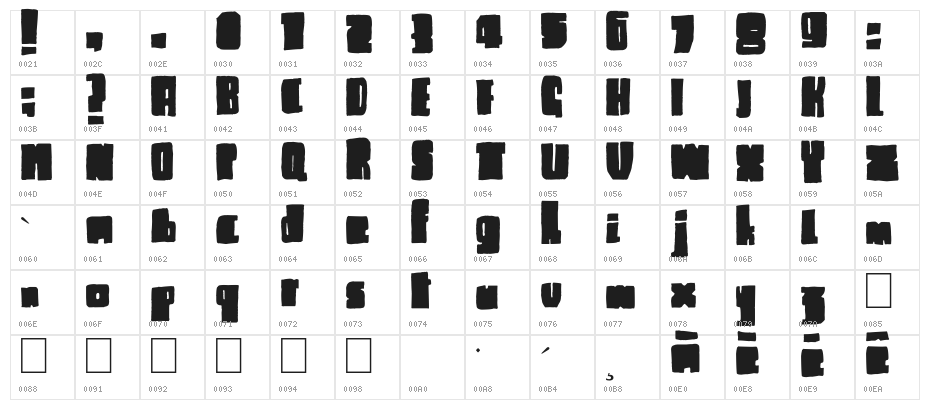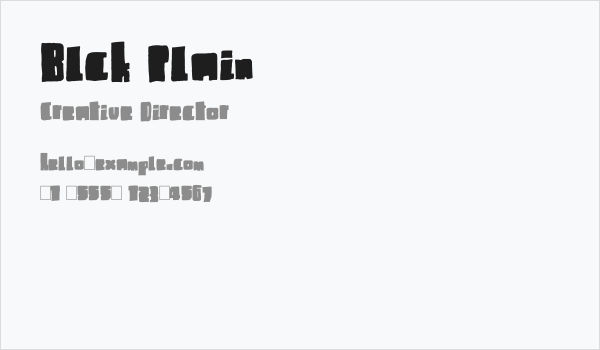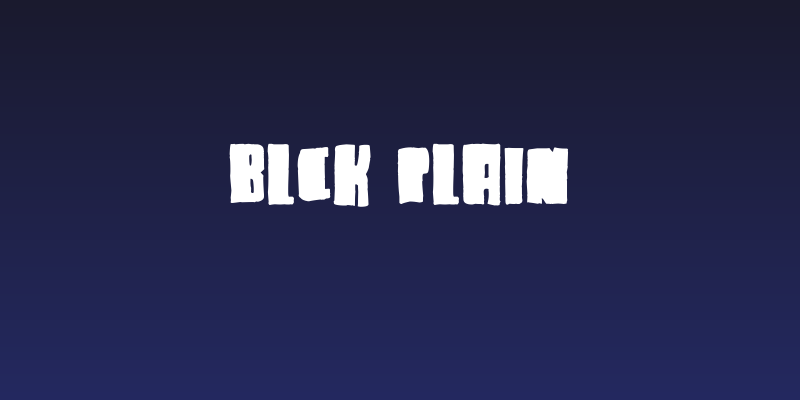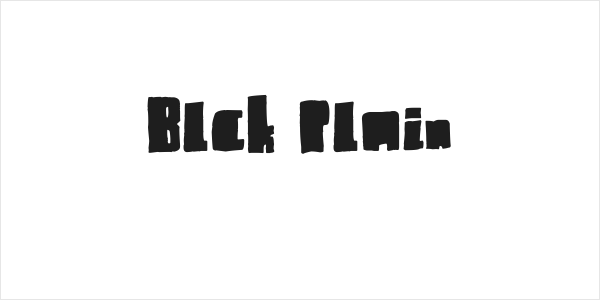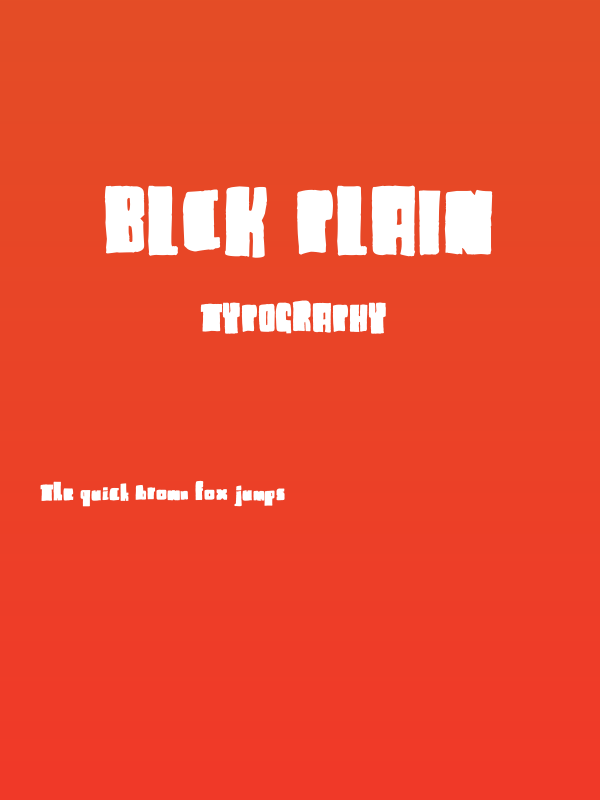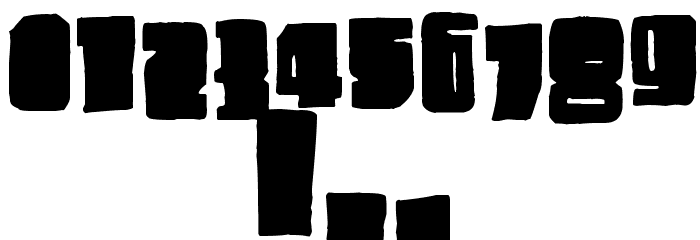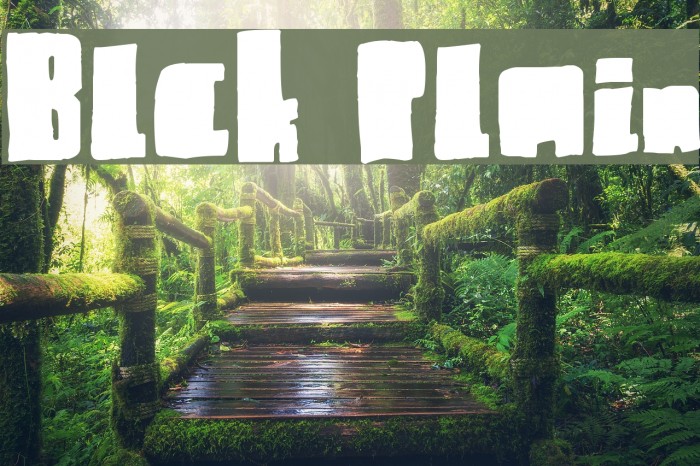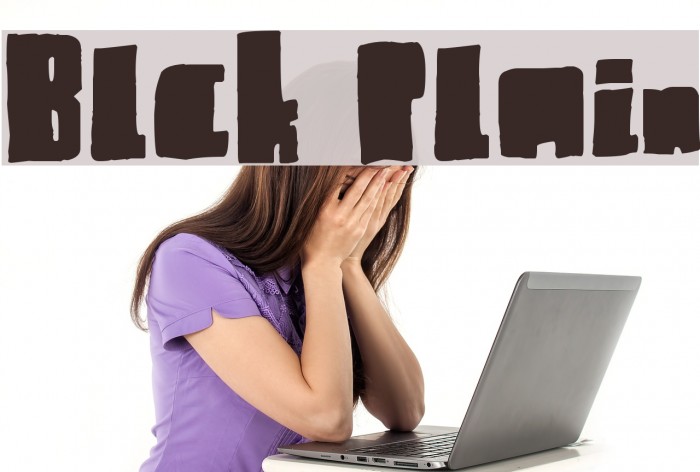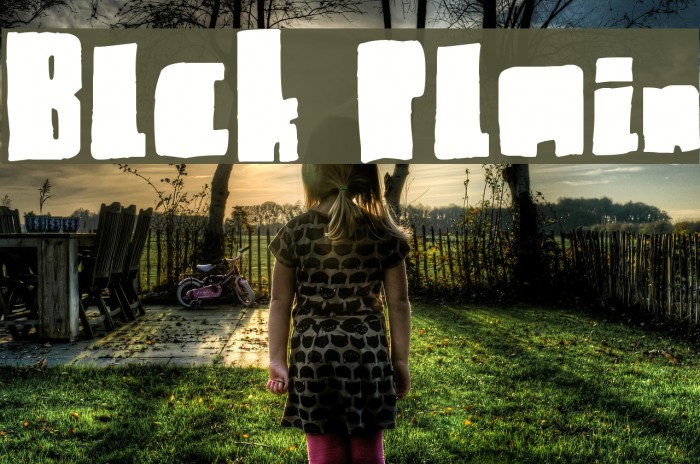
Blck Plain Font
Blck Plain Description
This font features a bold and chunky design with a distinctly rugged and uneven texture. Each character appears to be hand-cut, giving it a raw and organic feel. The letters are wide and blocky, with irregular edges that add to the font's unique personality. The uppercase and lowercase letters maintain a consistent style, while the numbers and special characters follow the same bold and textured aesthetic. This font is highly decorative, making it ideal for projects that require a strong visual impact.
| Proposed Projects | Ideal for posters, album covers, branding projects, and any design requiring a bold statement. |